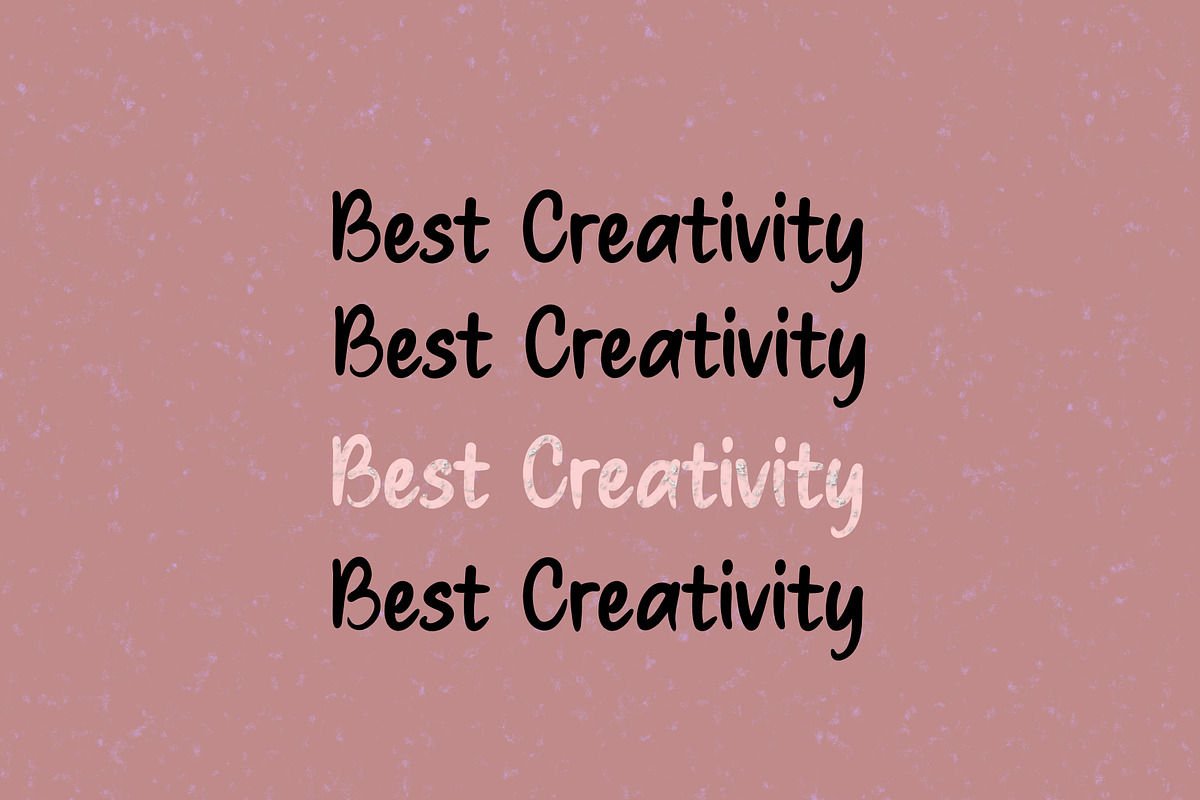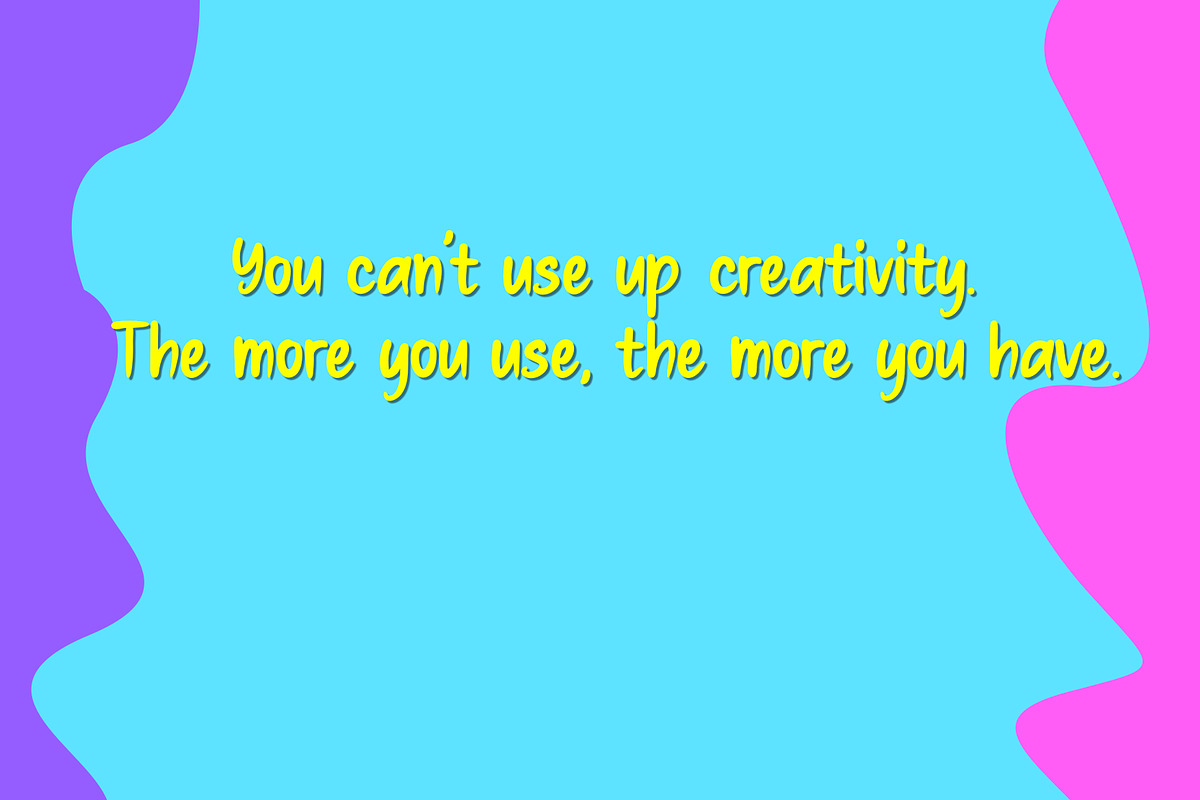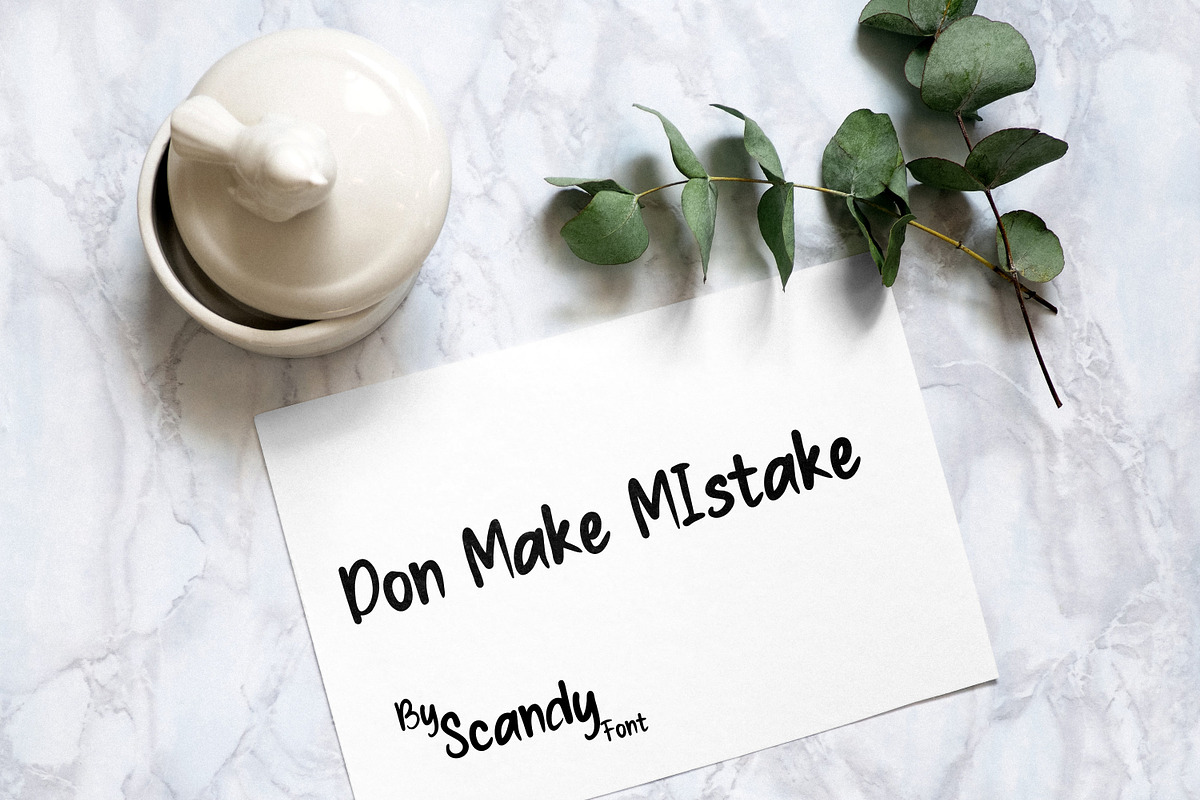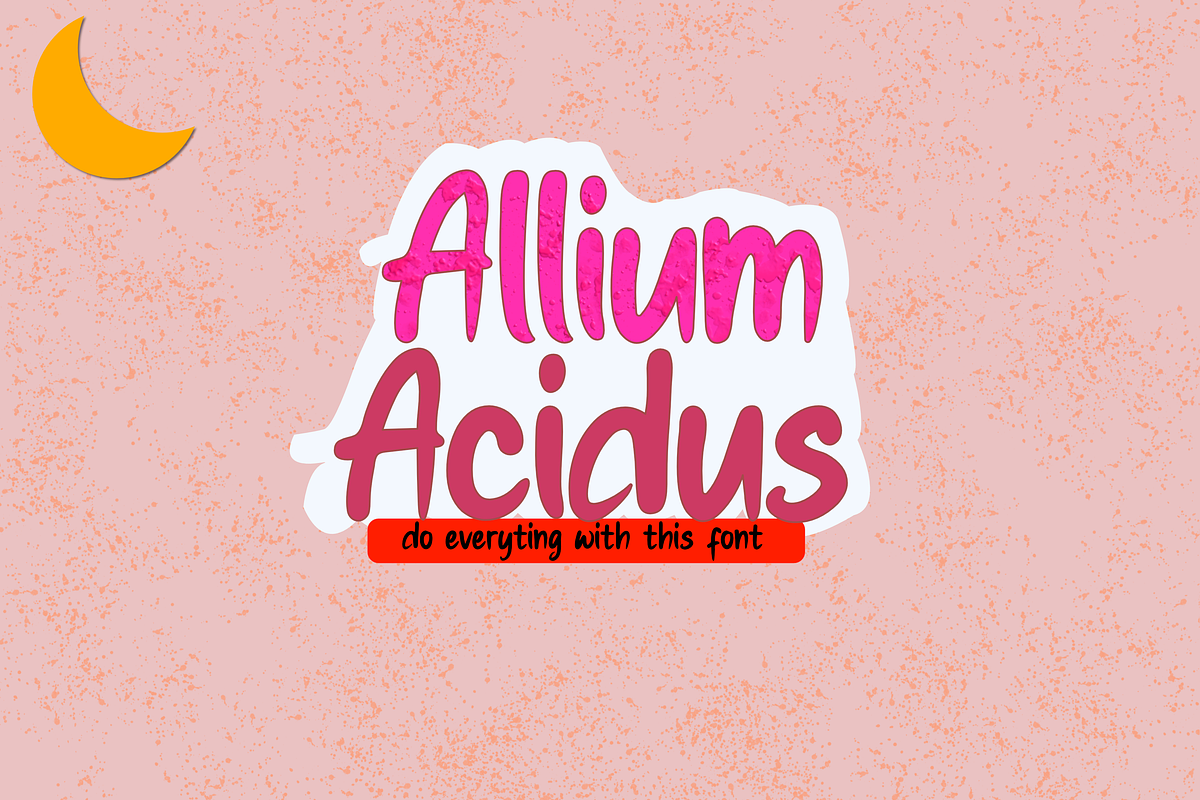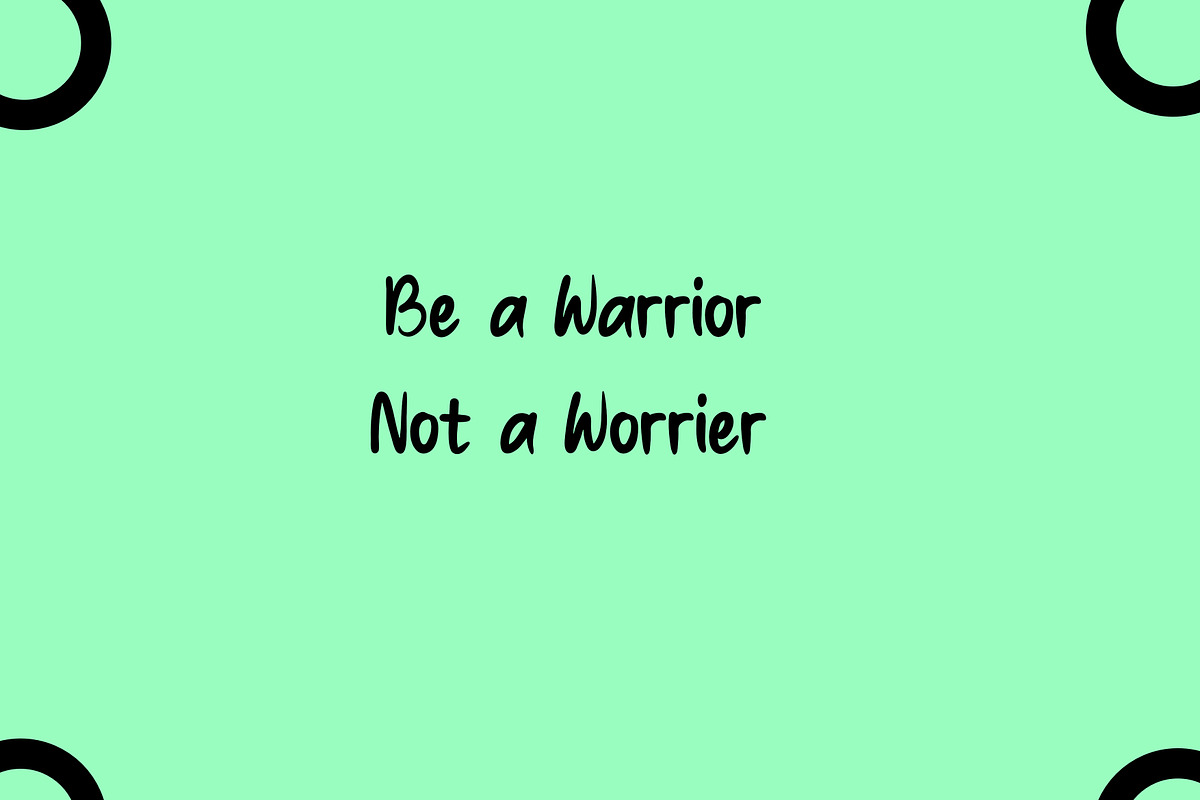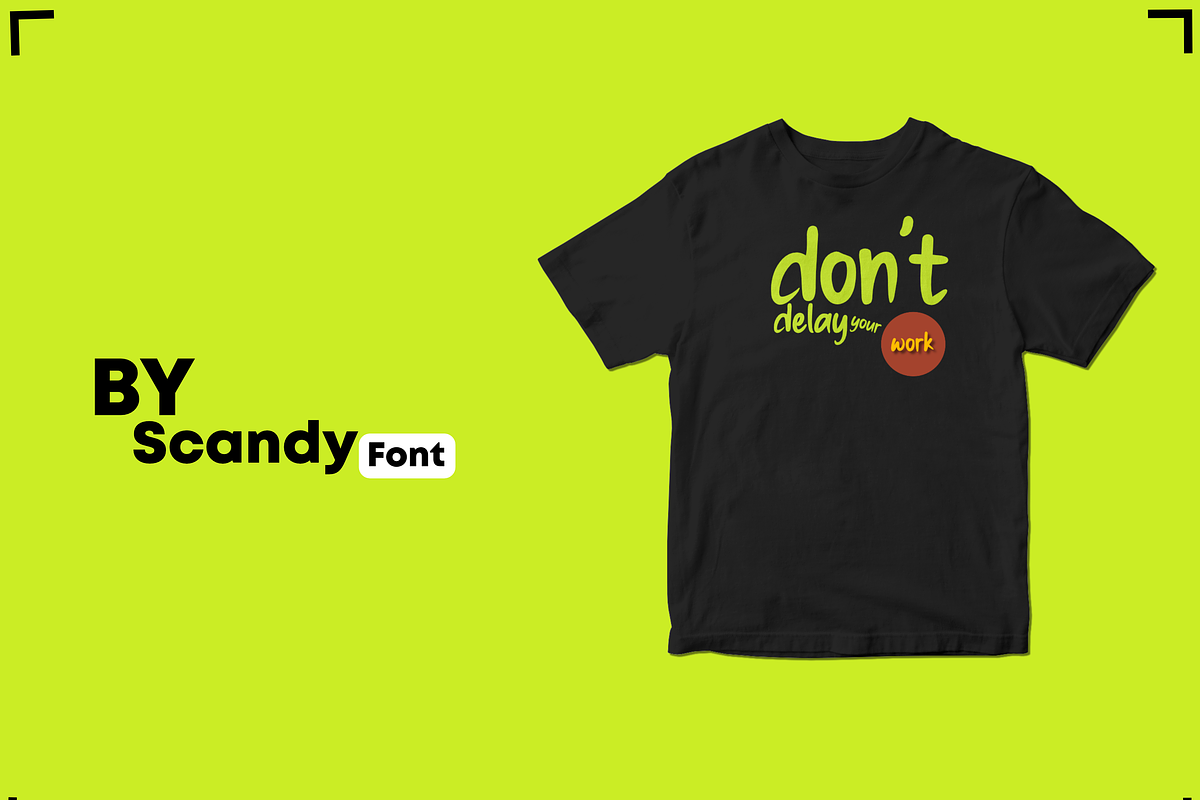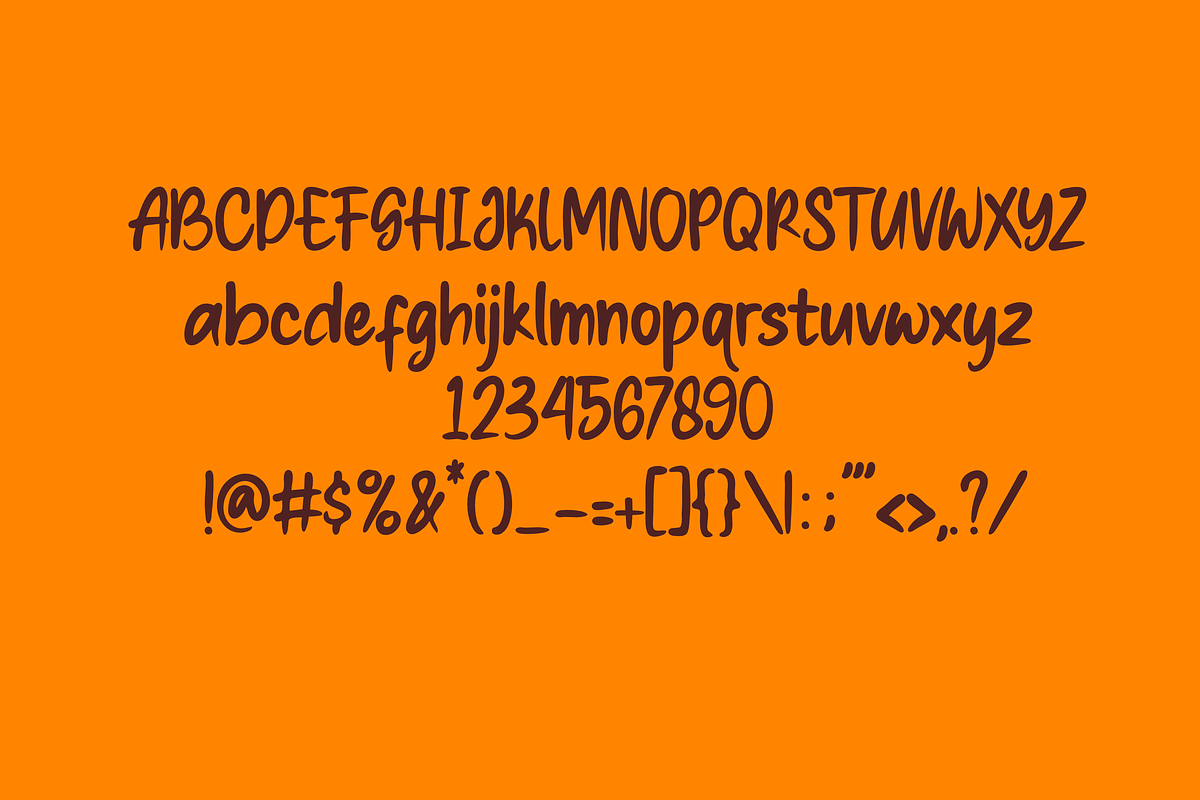
Allium Acidus | Script Font
Allium Acidus is an Script font with special alternative letters and with multilingual support. Solanum is perfect for logo design, magazine headers, product packaging, branding projects, clothing or simply as a stylish text overlay to any images or websites.